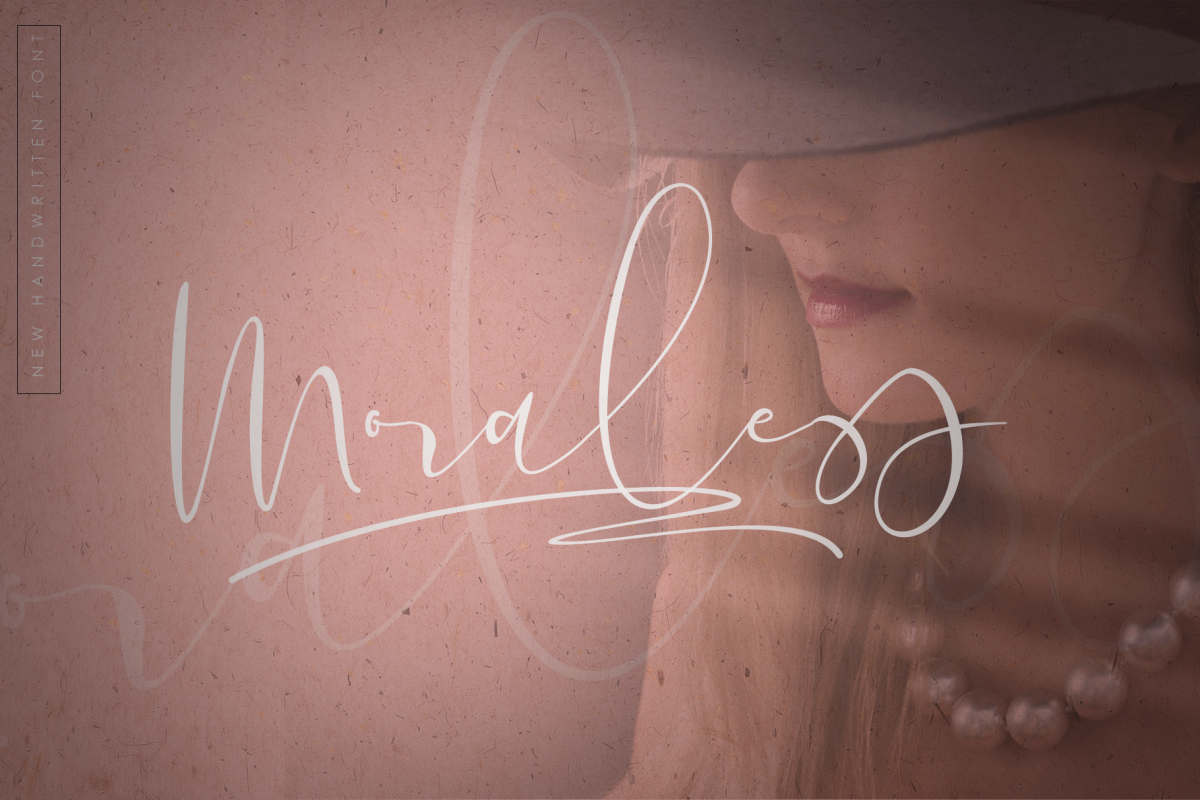
Moralles & solusion
Moralless & Solution are two different font types;- Moralless is a script font with typical handmade, a work that is purely a result of handmade, has a natural characteristic. this is perfect for invitations, signatures, blogs, social media, business cards, product brands.; Solution is a normal sans font with its delicate and gentle characteristic. It is perfect for invitations, signatures, blogs, social media, business cards, product brands.- Moralless has Stylistic standard, Stylistic Alternates and ligatures. and includes uppercase and lowercase letters, numbers and punctuation marks.- Solution has Solid Style, includes uppercase and lowercase letters, numbers and punctuation.FILE INCLUDE